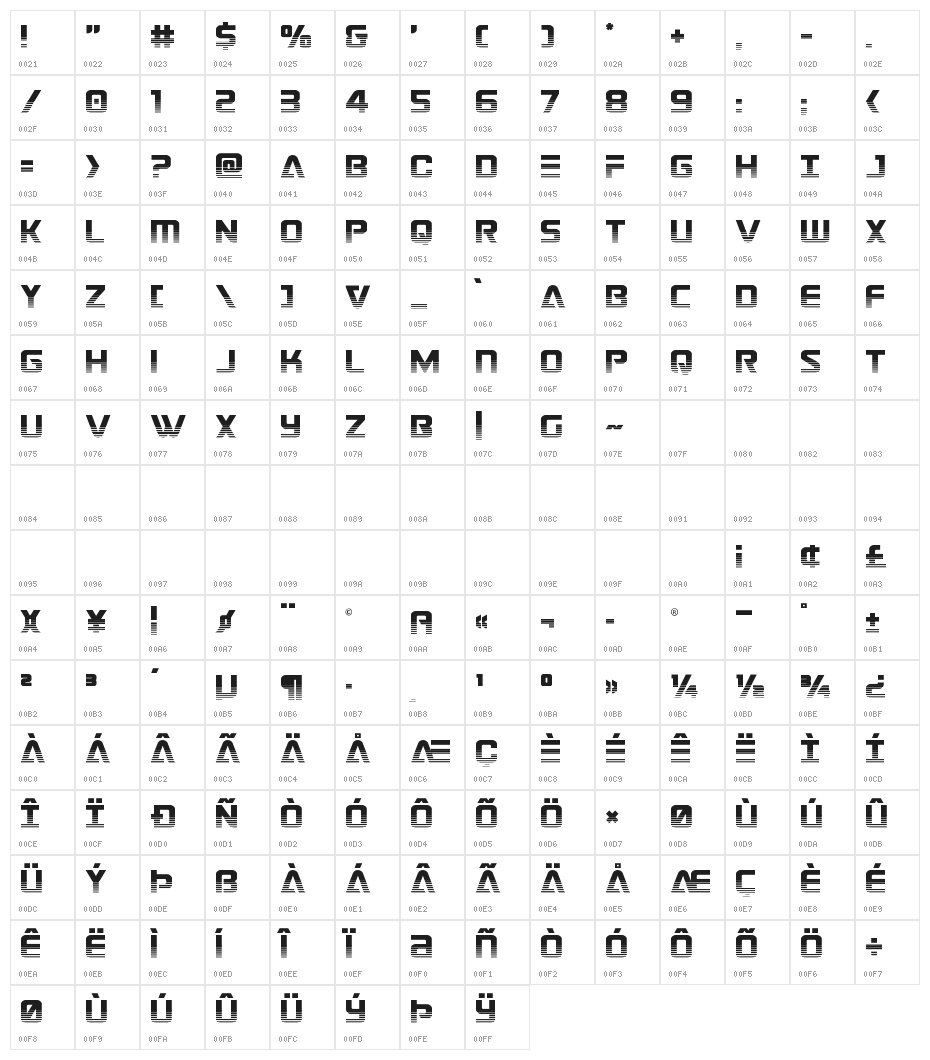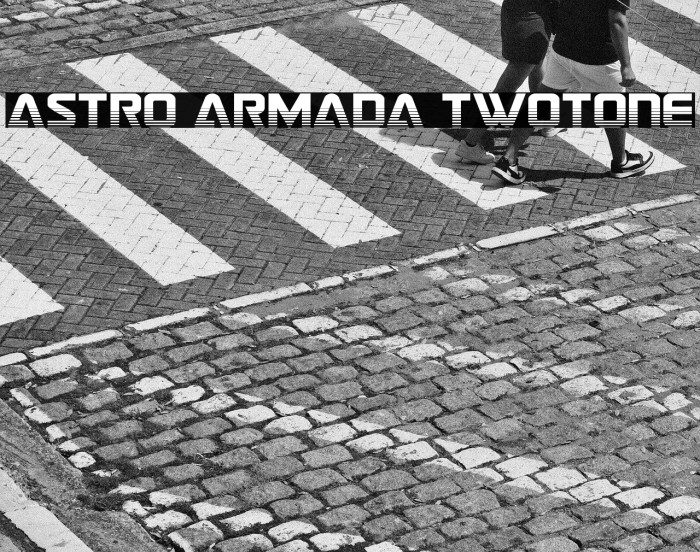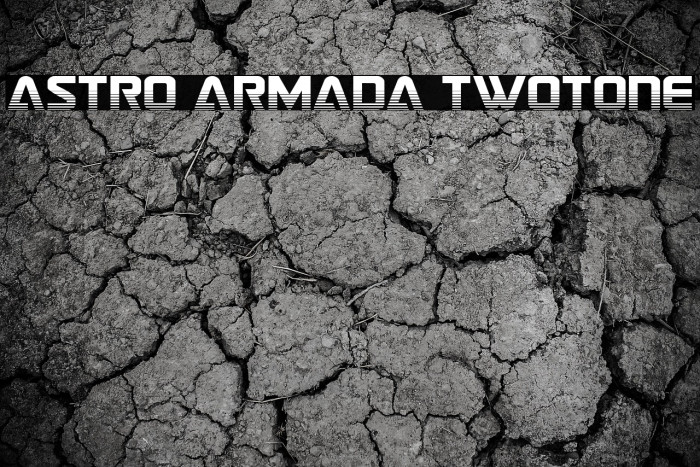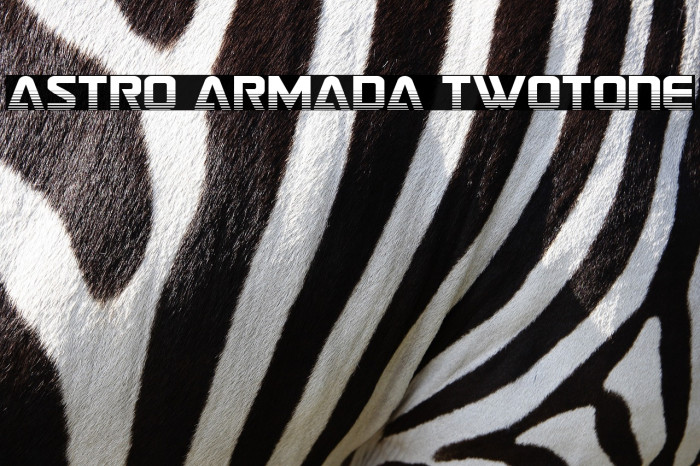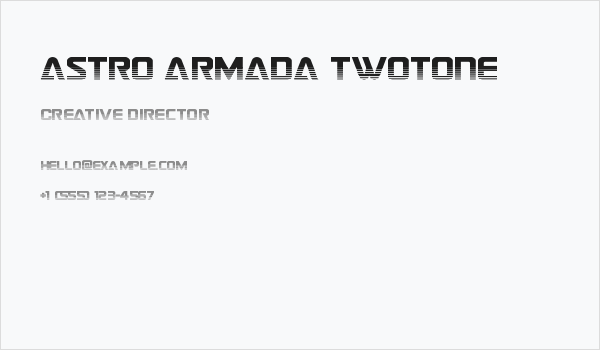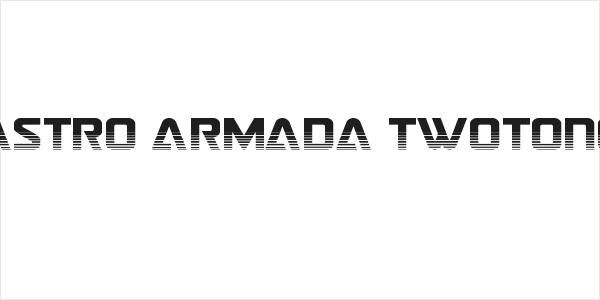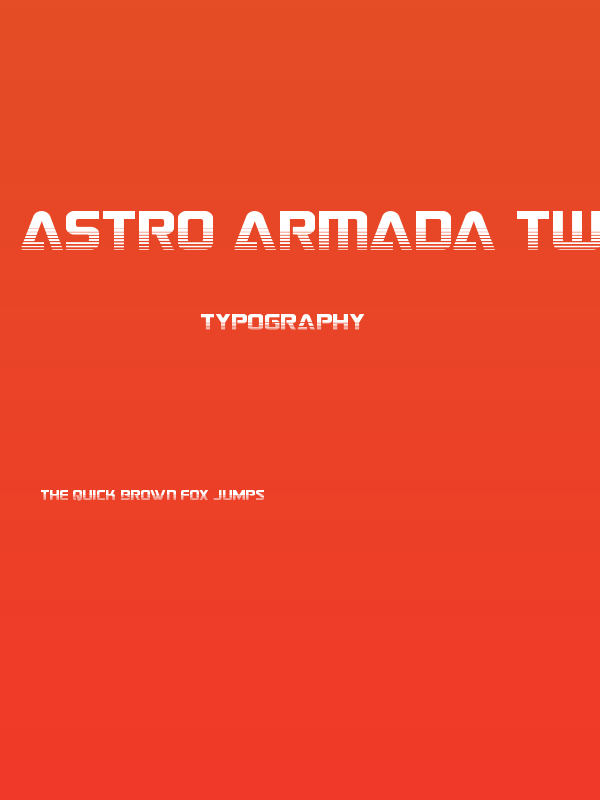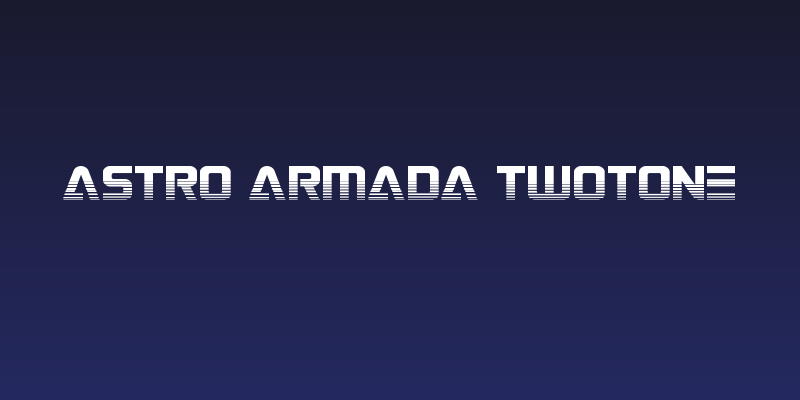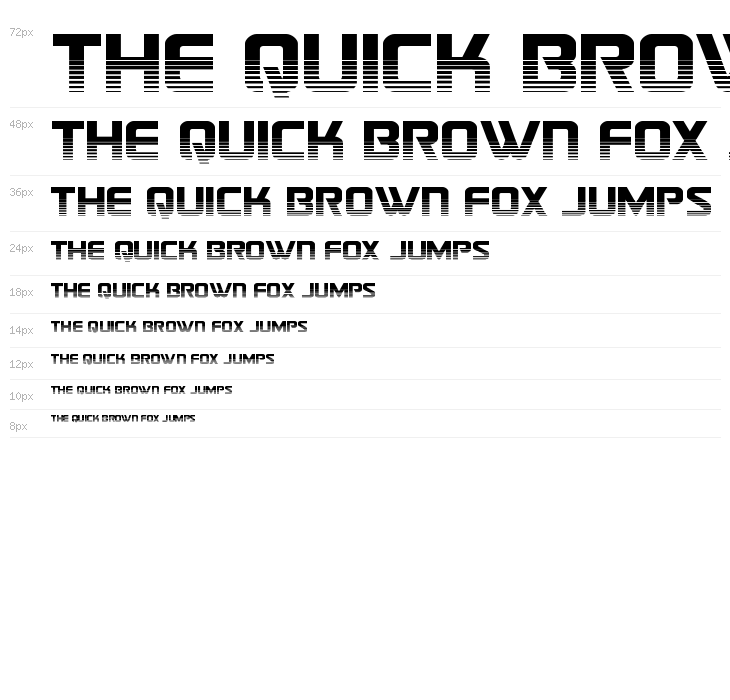
Astro Armada Twotone Font
Astro Armada Twotone Description
This font features a futuristic and dynamic design, characterized by its two-tone, striped pattern that gives each character a sense of movement and depth. The uppercase and lowercase letters, along with numbers and special characters, are designed with a consistent horizontal line motif that creates a visually striking effect. The geometric shapes and sharp angles contribute to its modern and tech-inspired aesthetic, making it ideal for projects that require a bold and innovative look.
Proposed ProjectsIdeal for sci-fi themed designs, tech branding, video game titles, and futuristic posters.